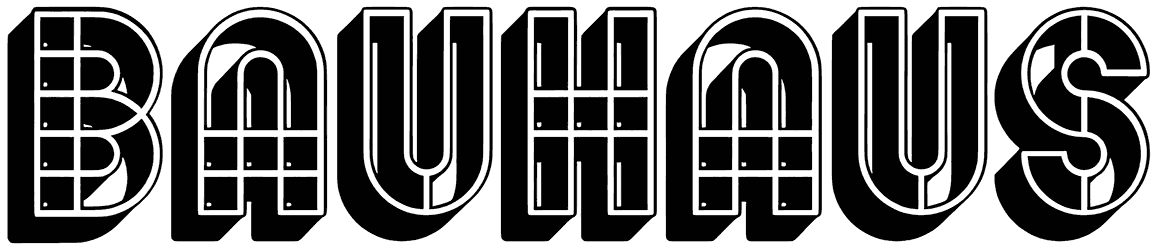
Bauhaus Font
Since you use this 3D font for your innovative design, the result will be mesmerizing. The Bauhaus font has a stunning and distinct visual that can differentiate your project from others. As a shadow font with two versions, it doesn’t support lowercase letters and most punctuation marks, yet you can use it to bold the title of a futuristic game scene and highlight your creativity.